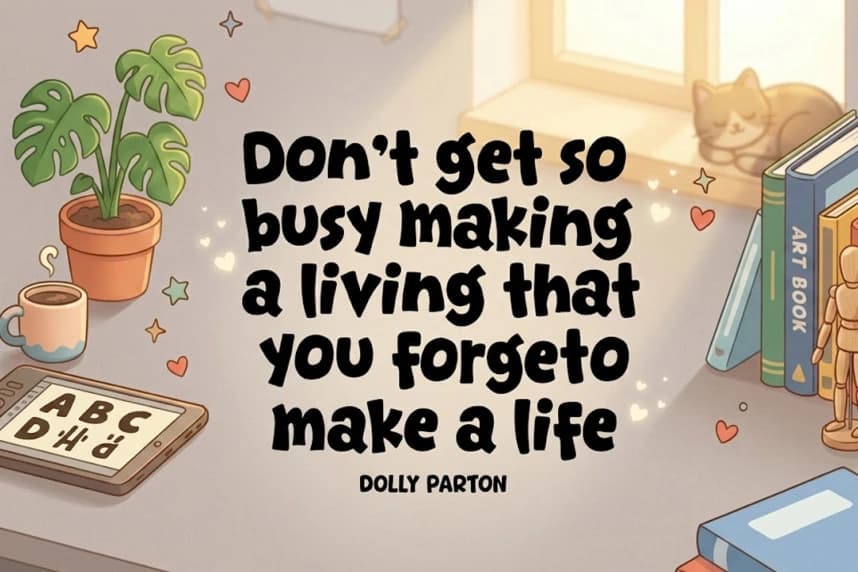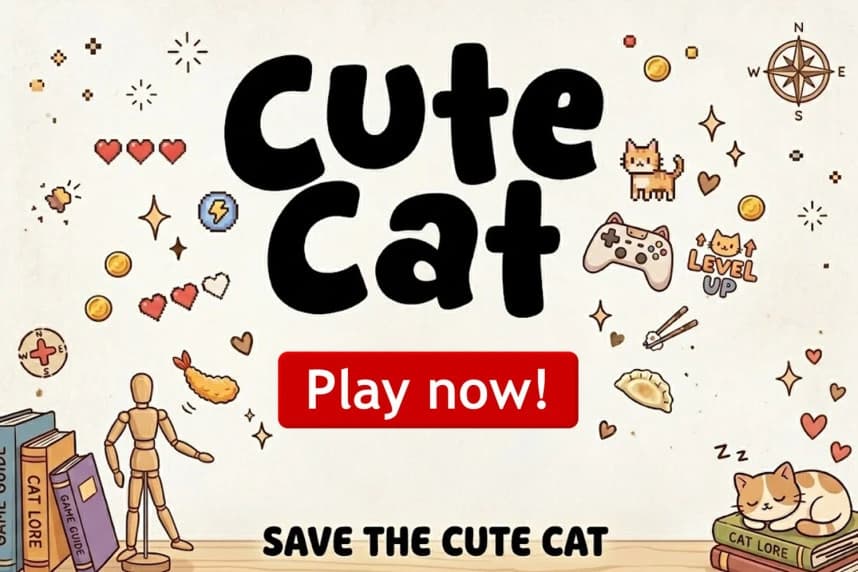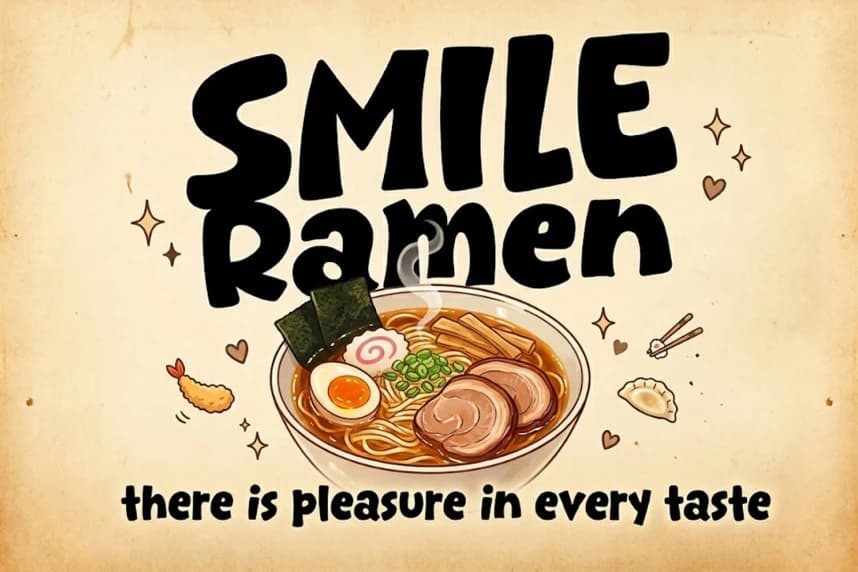
Slow Home Font
Slow Home Font is a bold, playful font designed for creators who love a touch of whimsy. With its organic shapes and full multilingual support (including symbols and fractions), this font is as functional as it is cute.